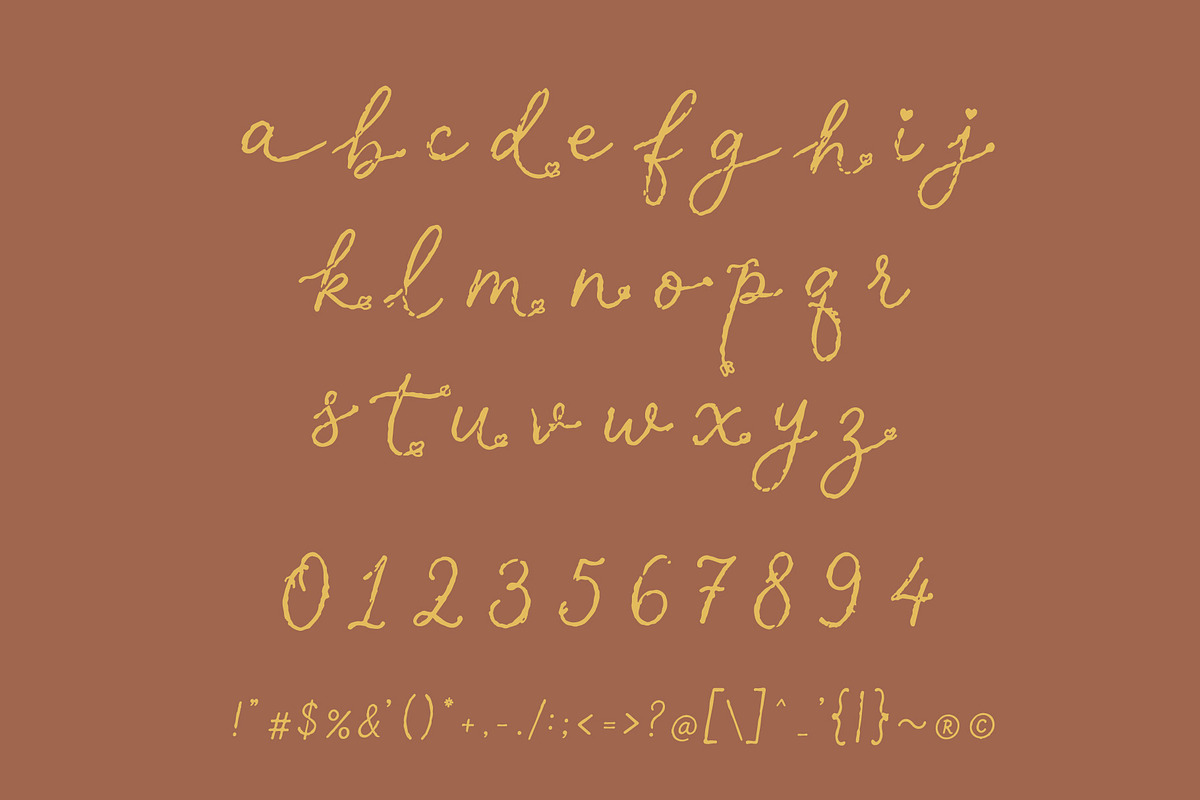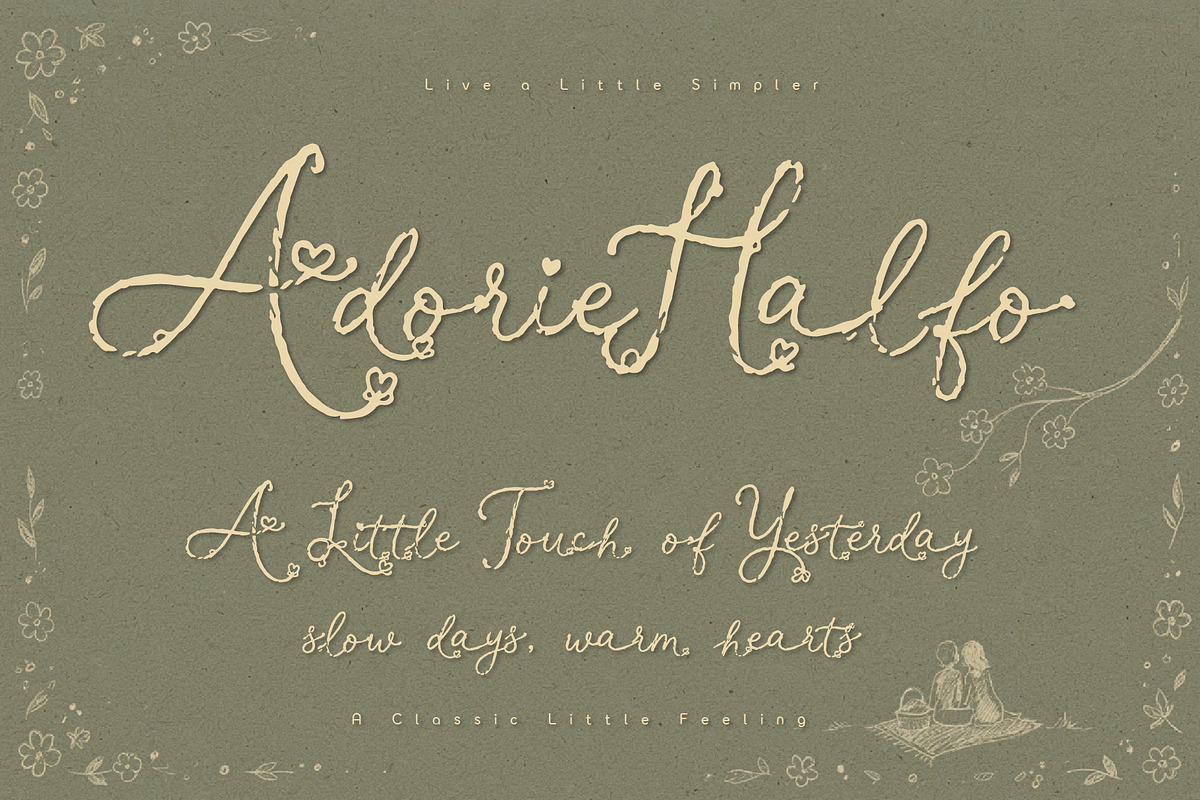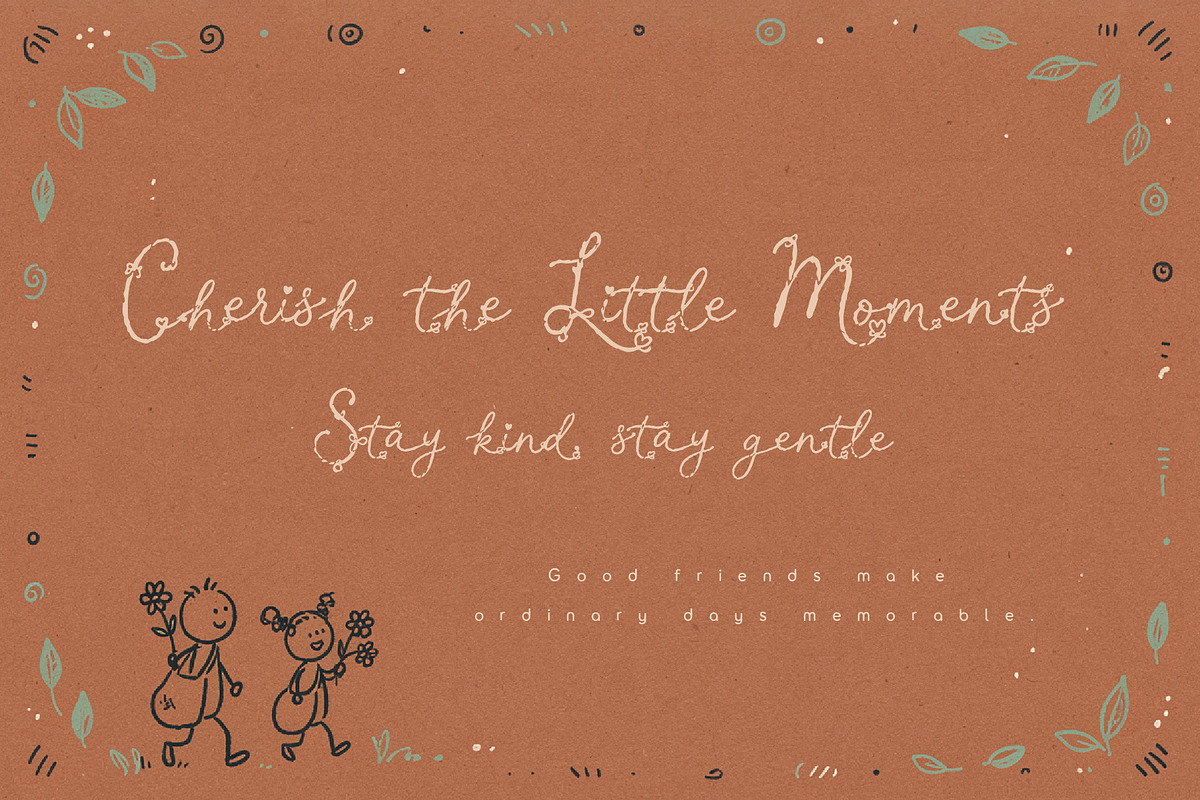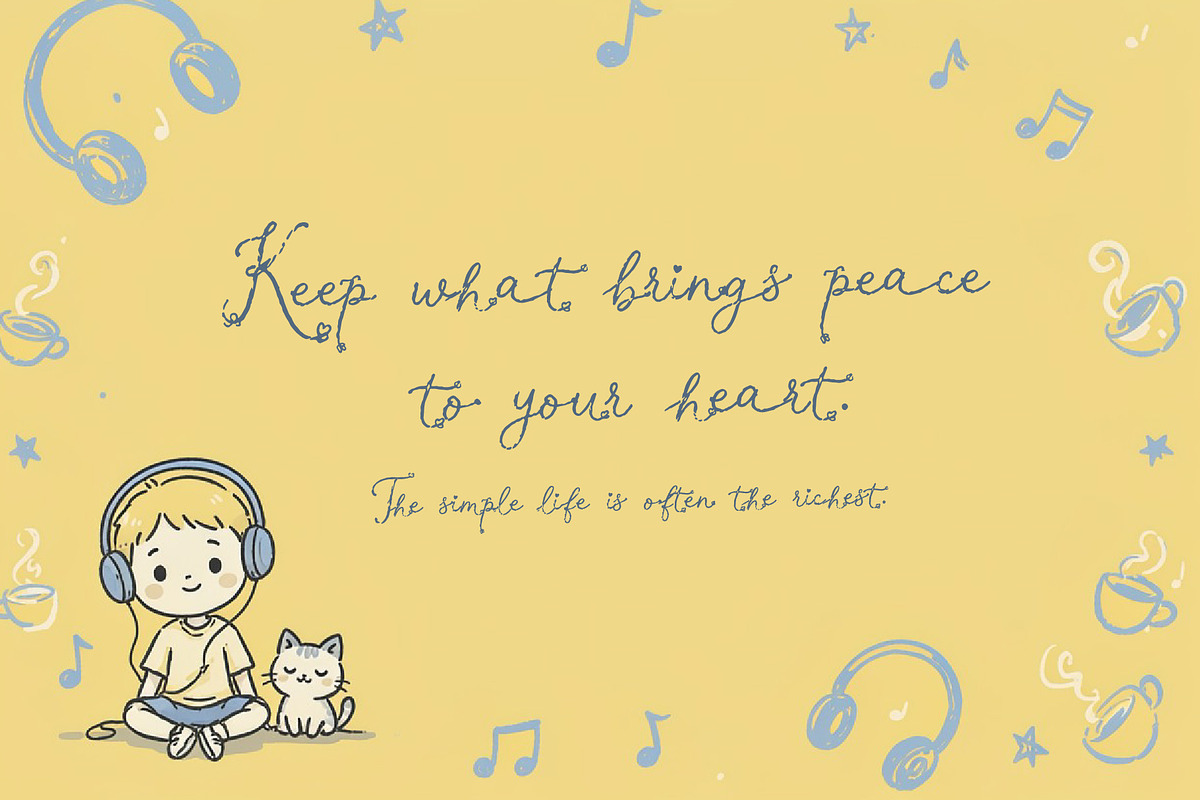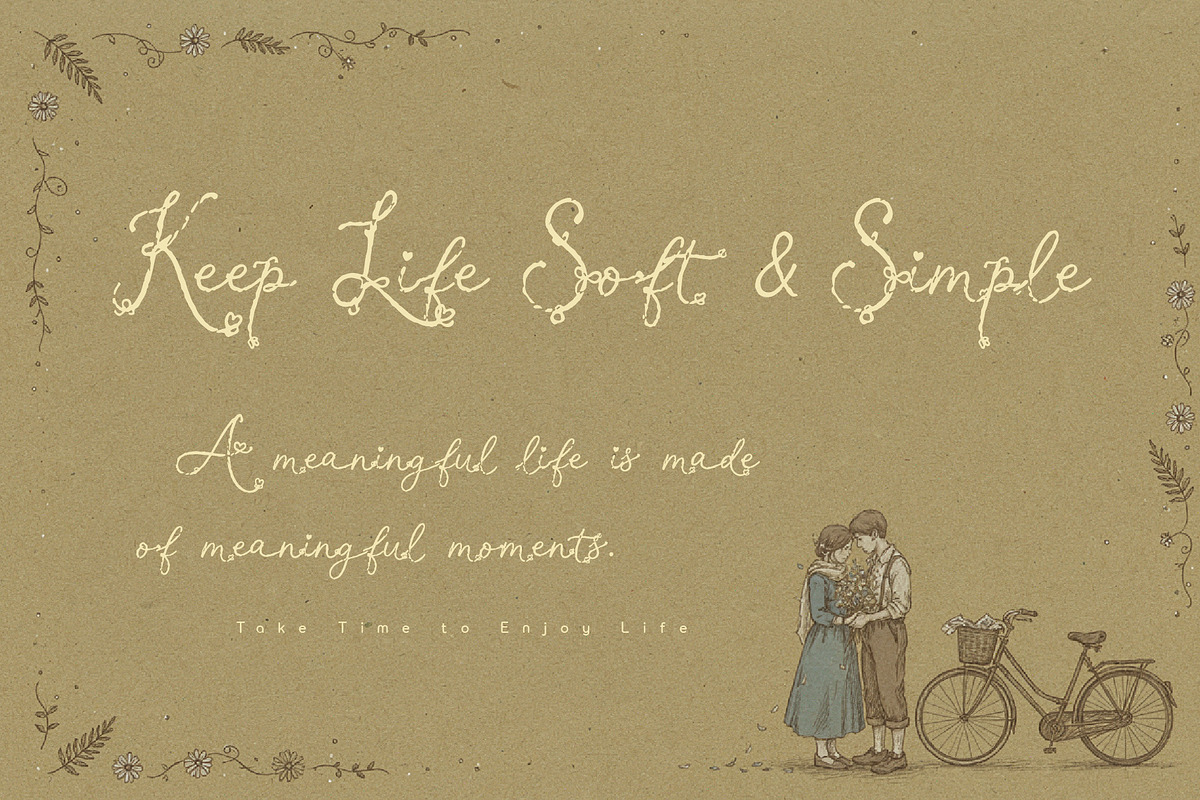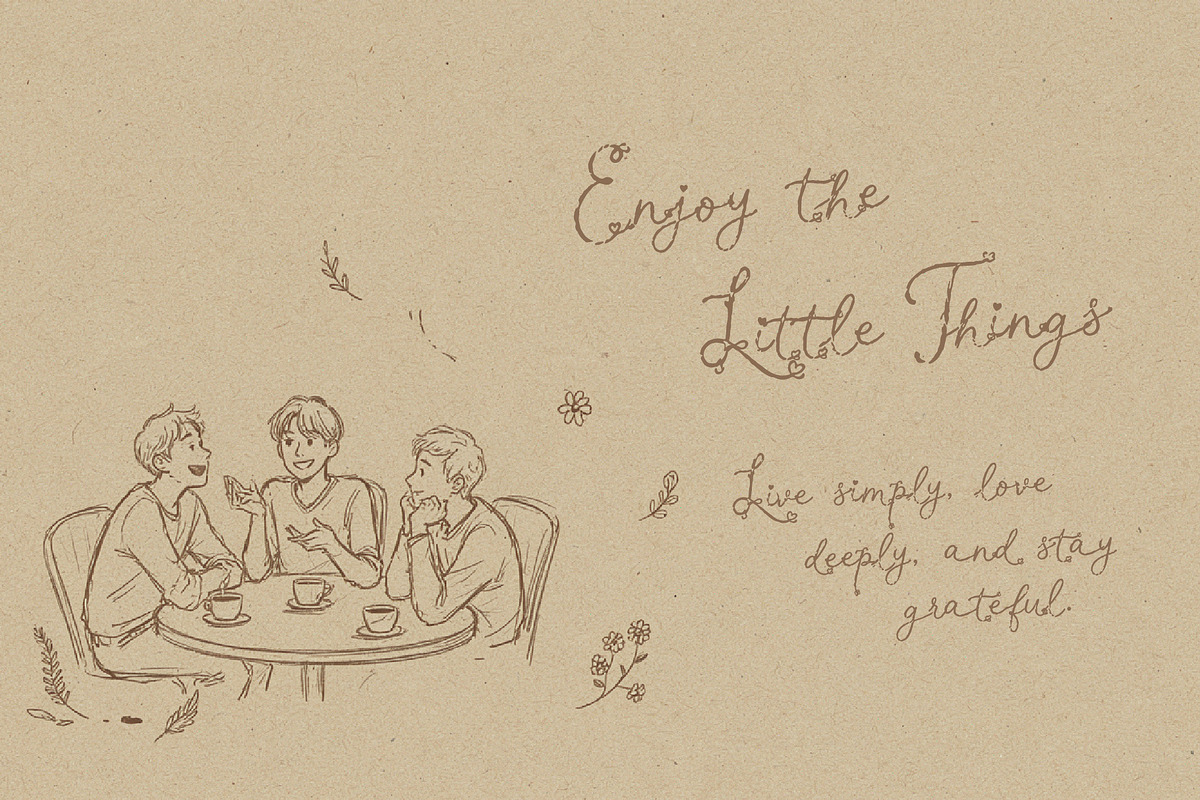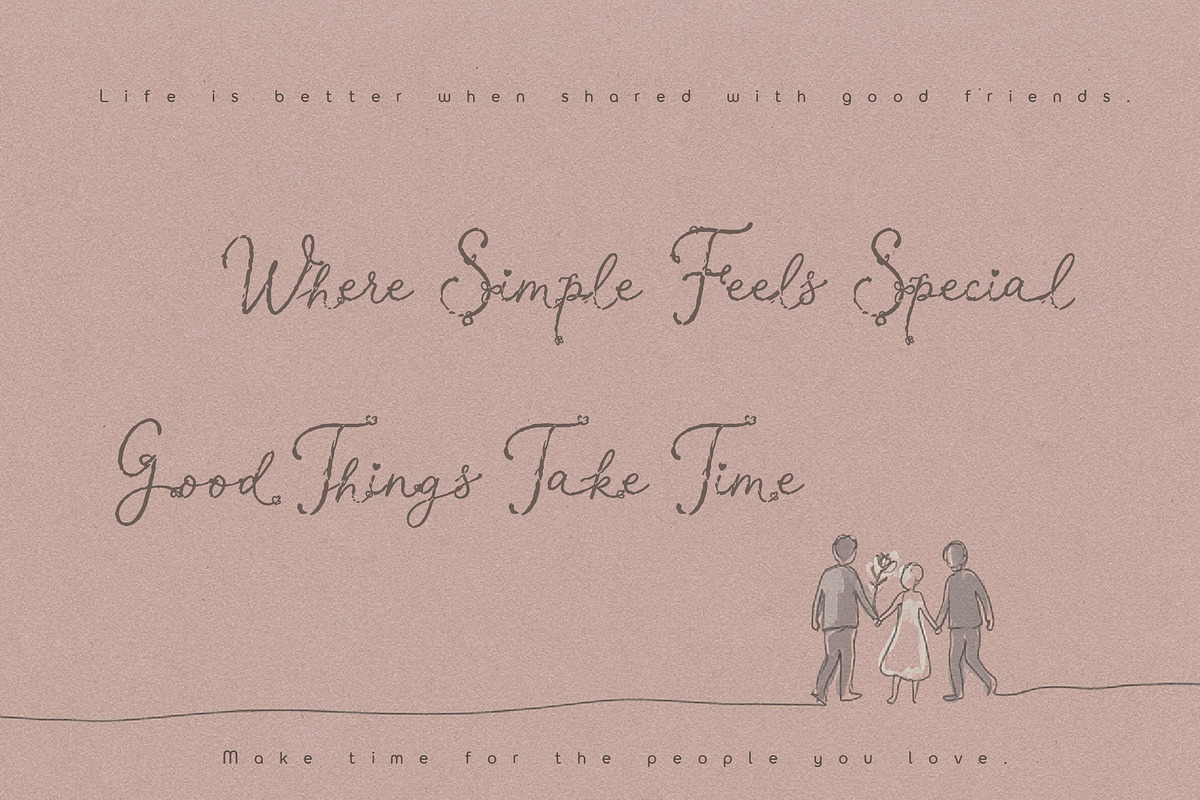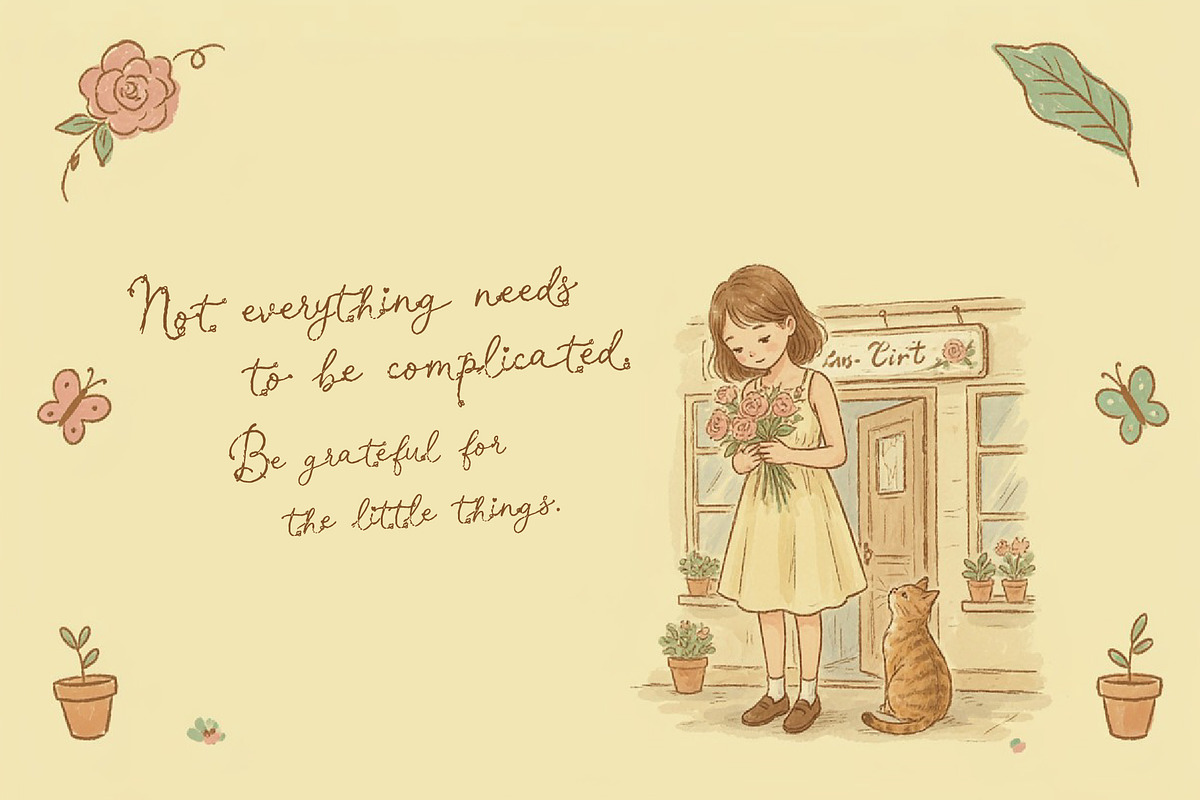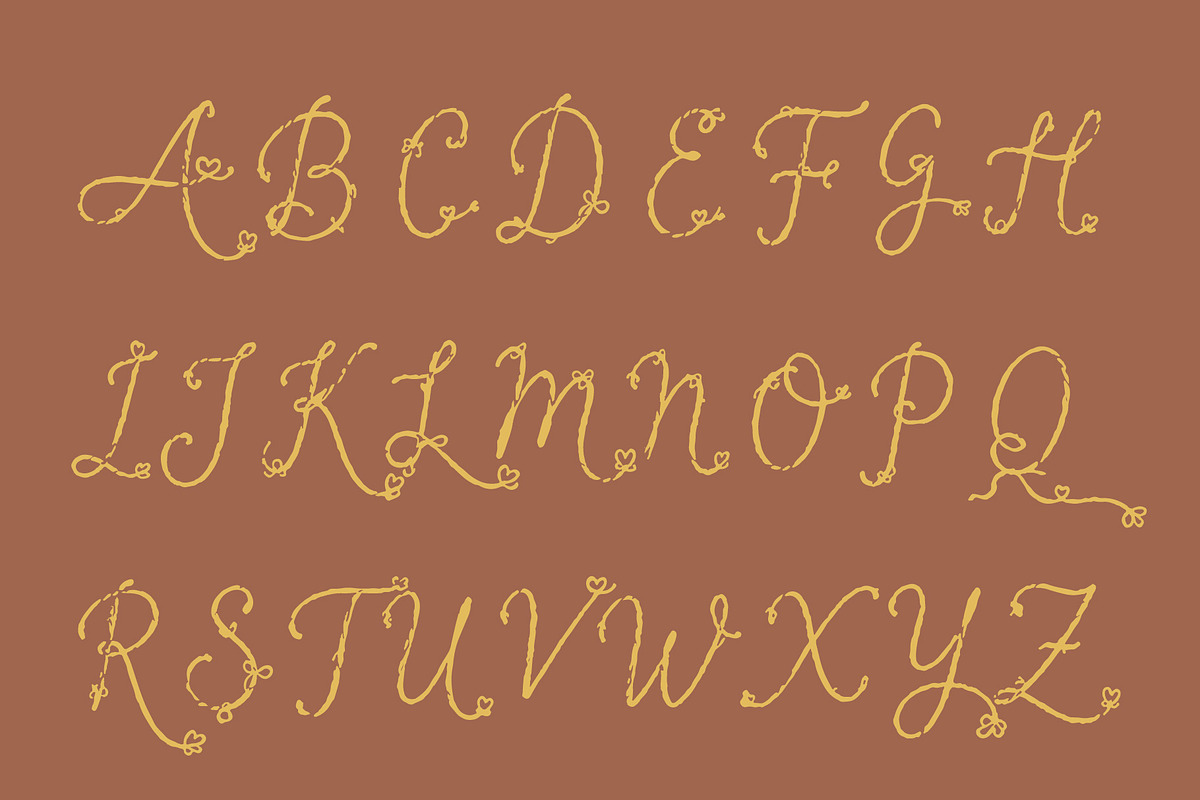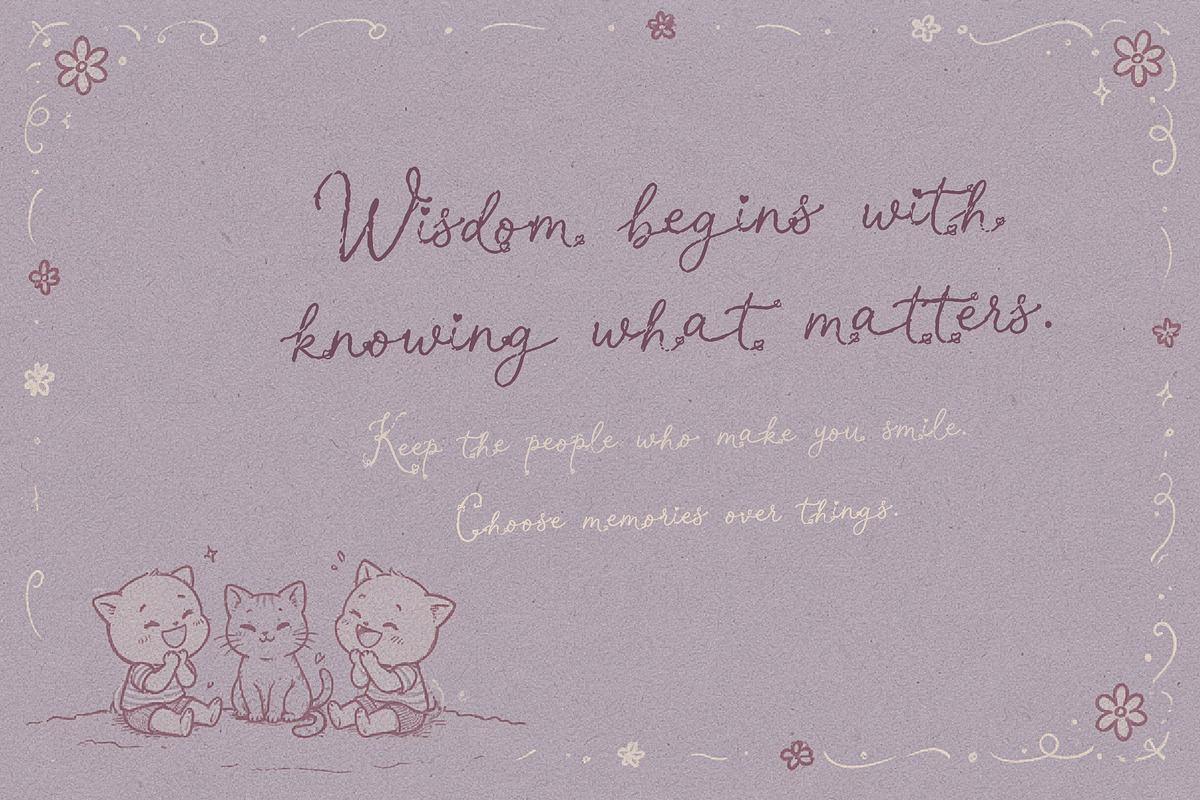
Adorie Halfo - Rustic Simple Script
Adorie Halfo is a charming rustic script that combines an classic handwritten character with a simple, classy feel. Its natural strokes, gentle curves, and lovely details create a warm, feminine, and friendly personality while keeping the lettering effortlessly elegant.
Inspired by handwritten notes, quiet countryside moments, and the beauty of simpler days, Adorie Halfo brings a nostalgic touch with a soft and lovely feeling. Perfect for lifestyle branding, cafés, boutiques, stationery, packaging, invitations, quotes, apparel, social media, and personal projects.
A script for designs that feel warm, feminine, lovely, timeless, friendly, and beautifully simple.